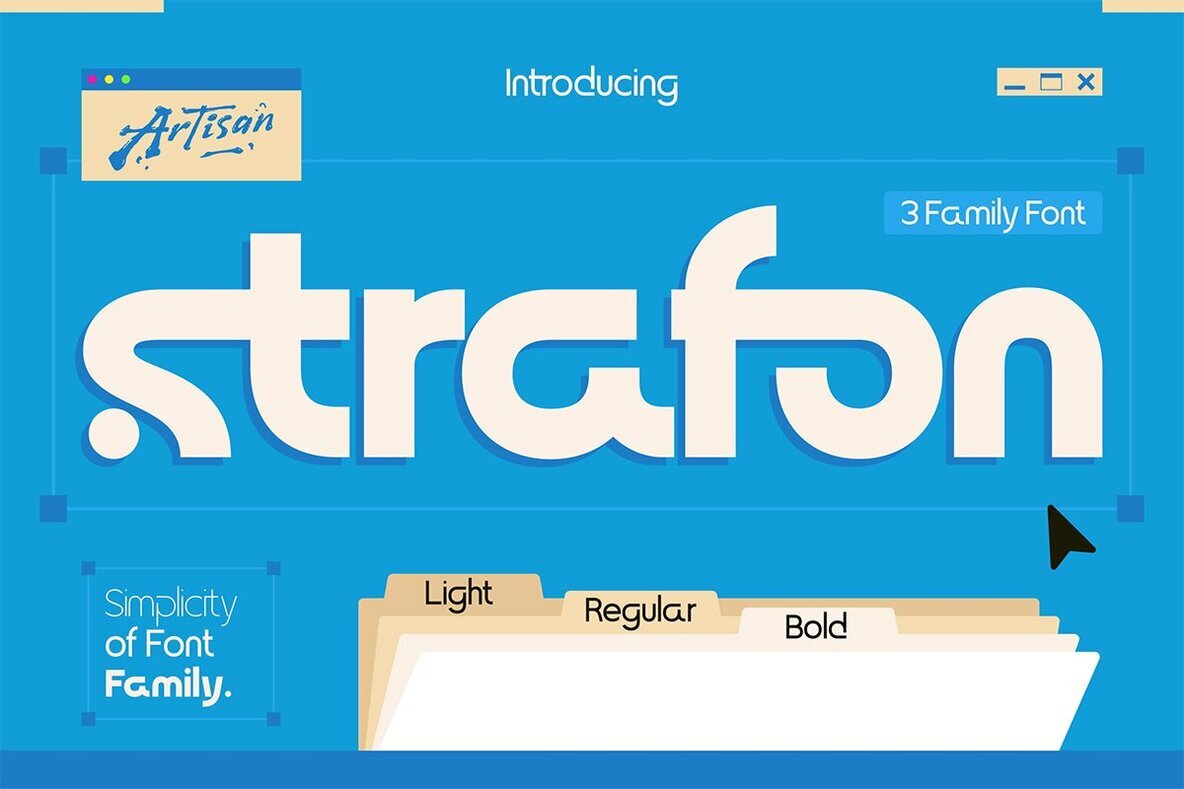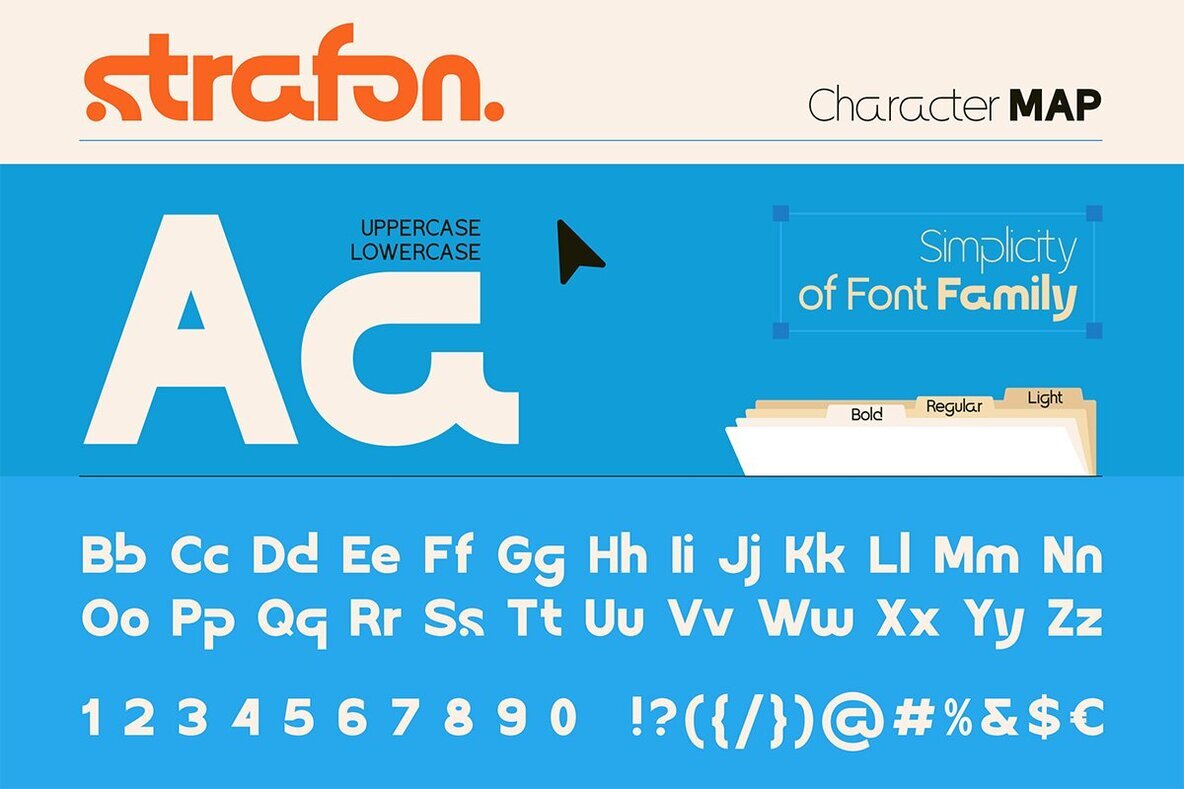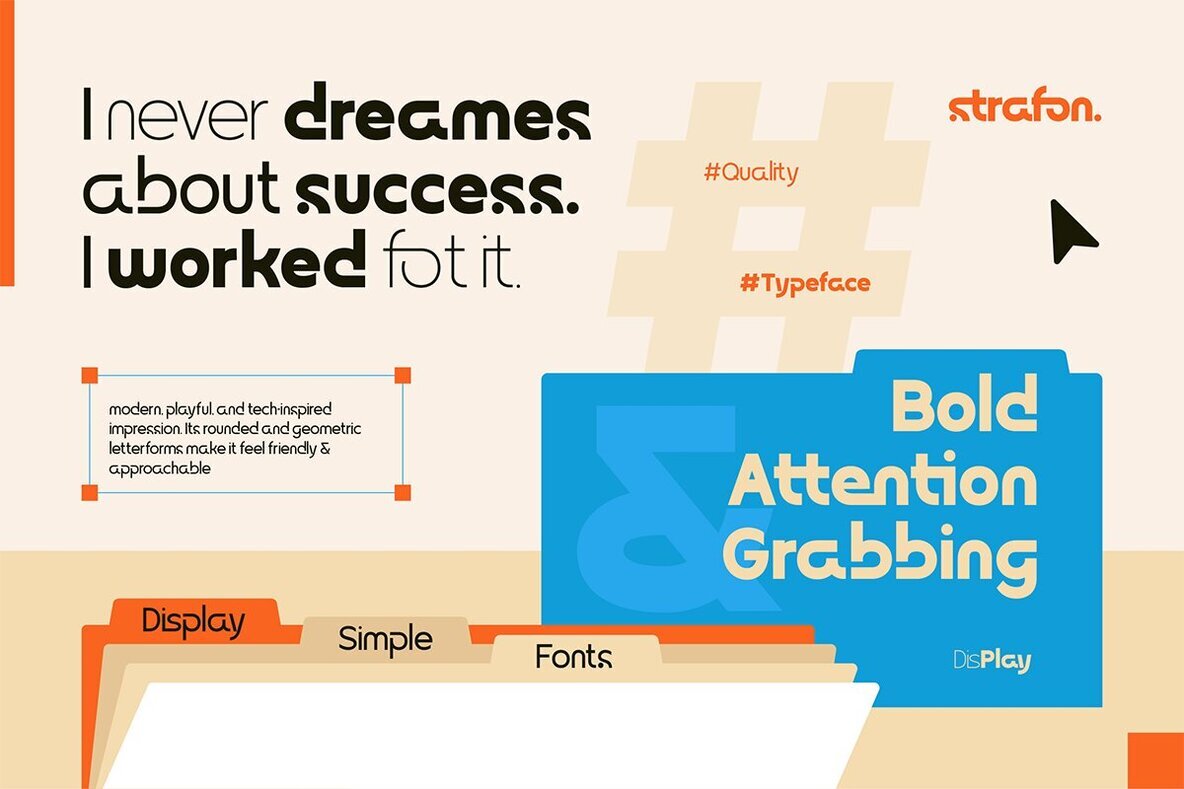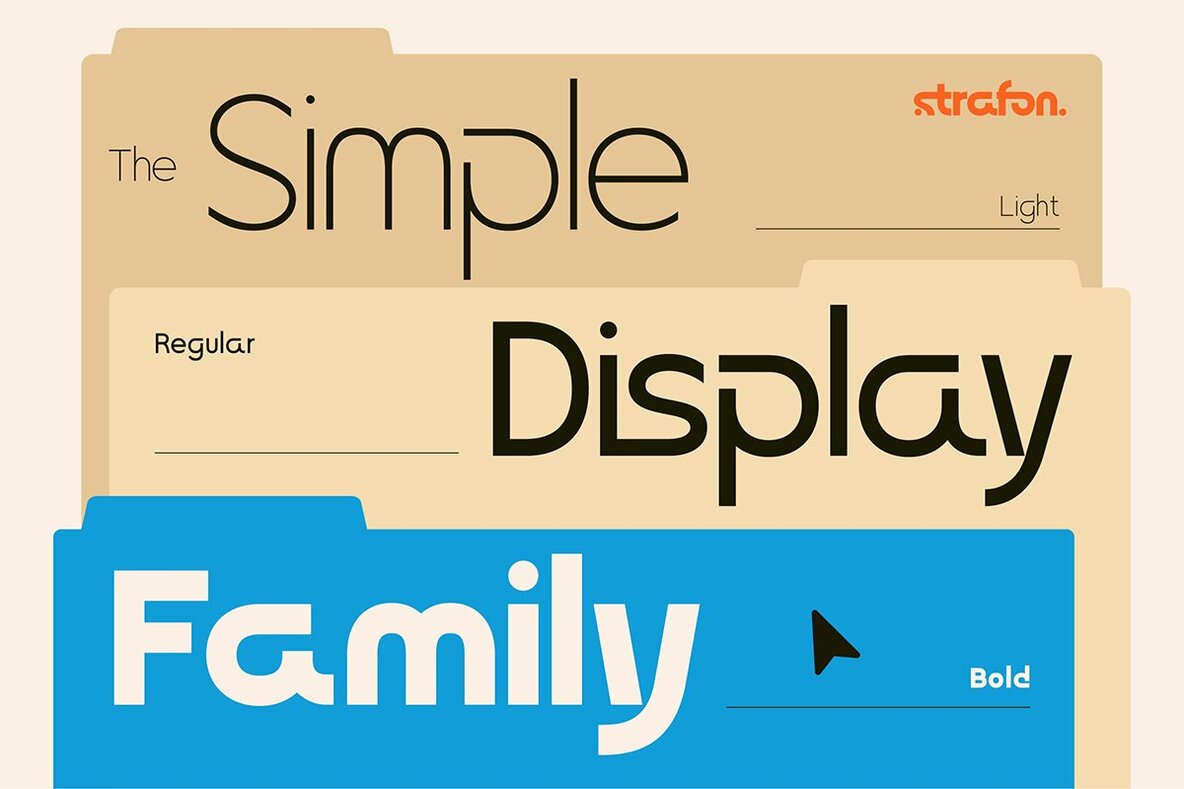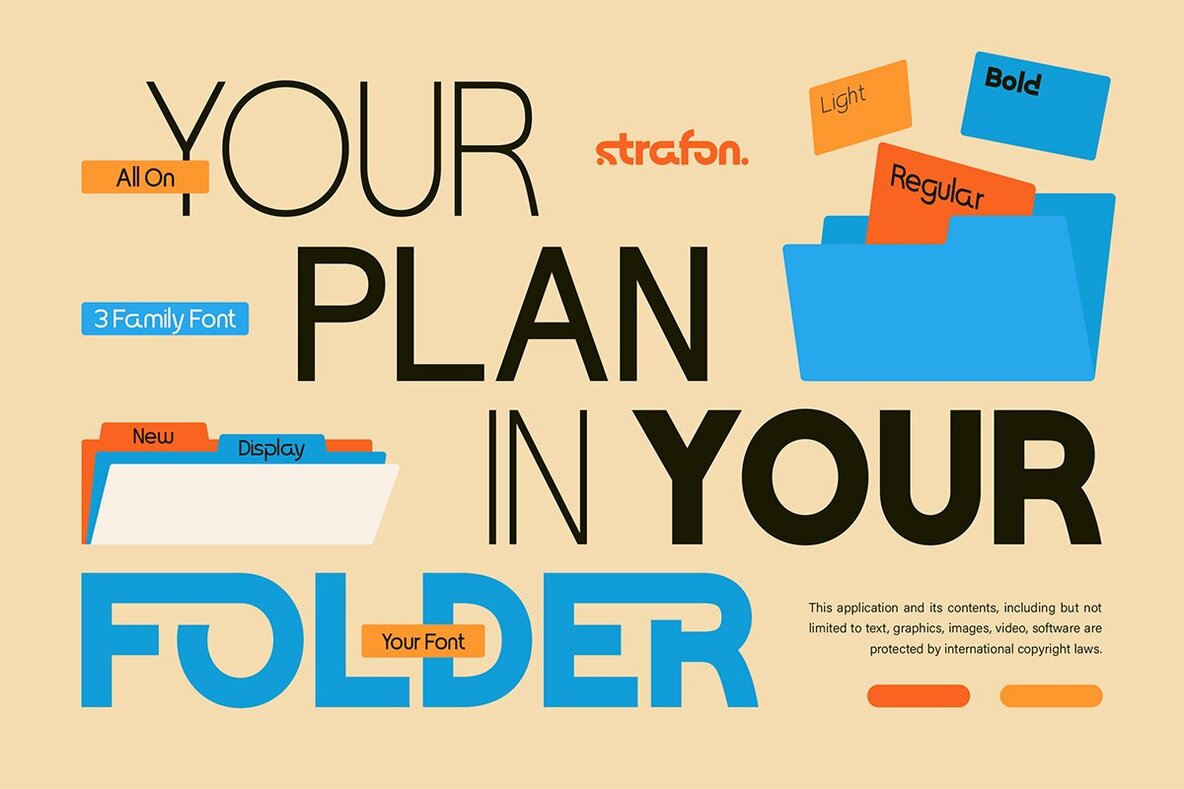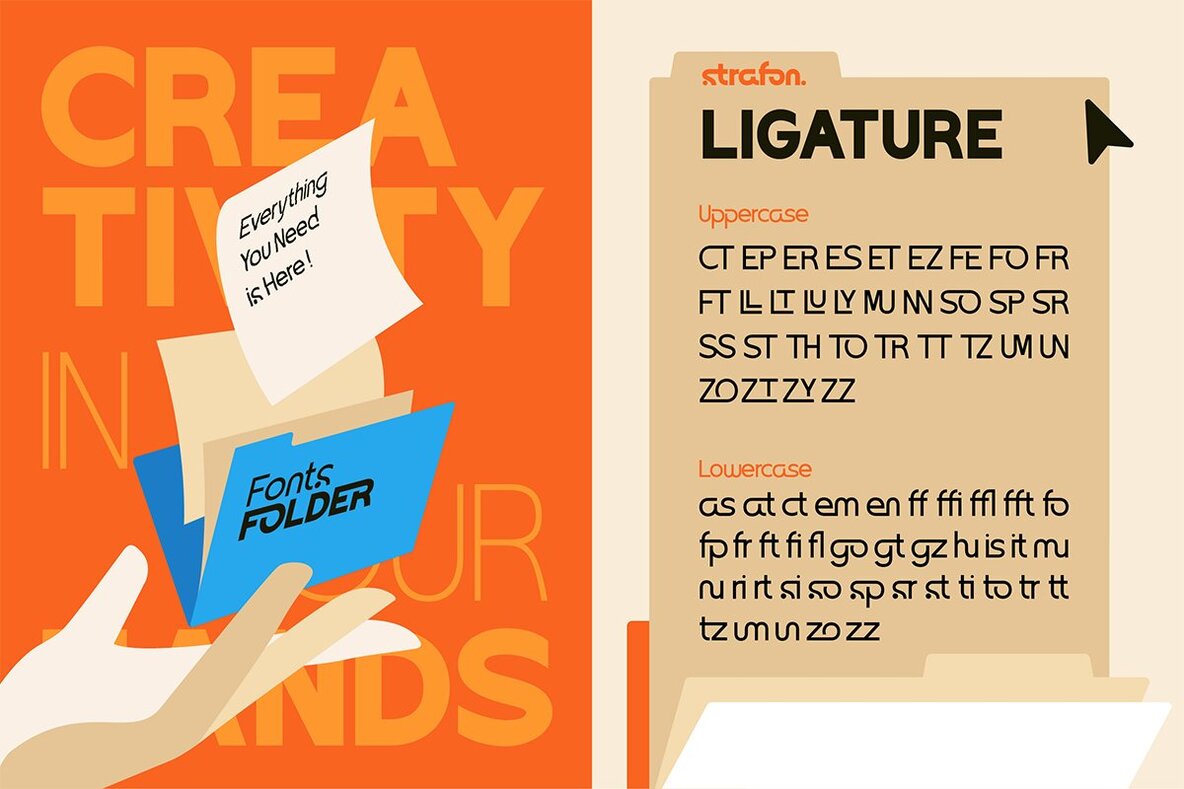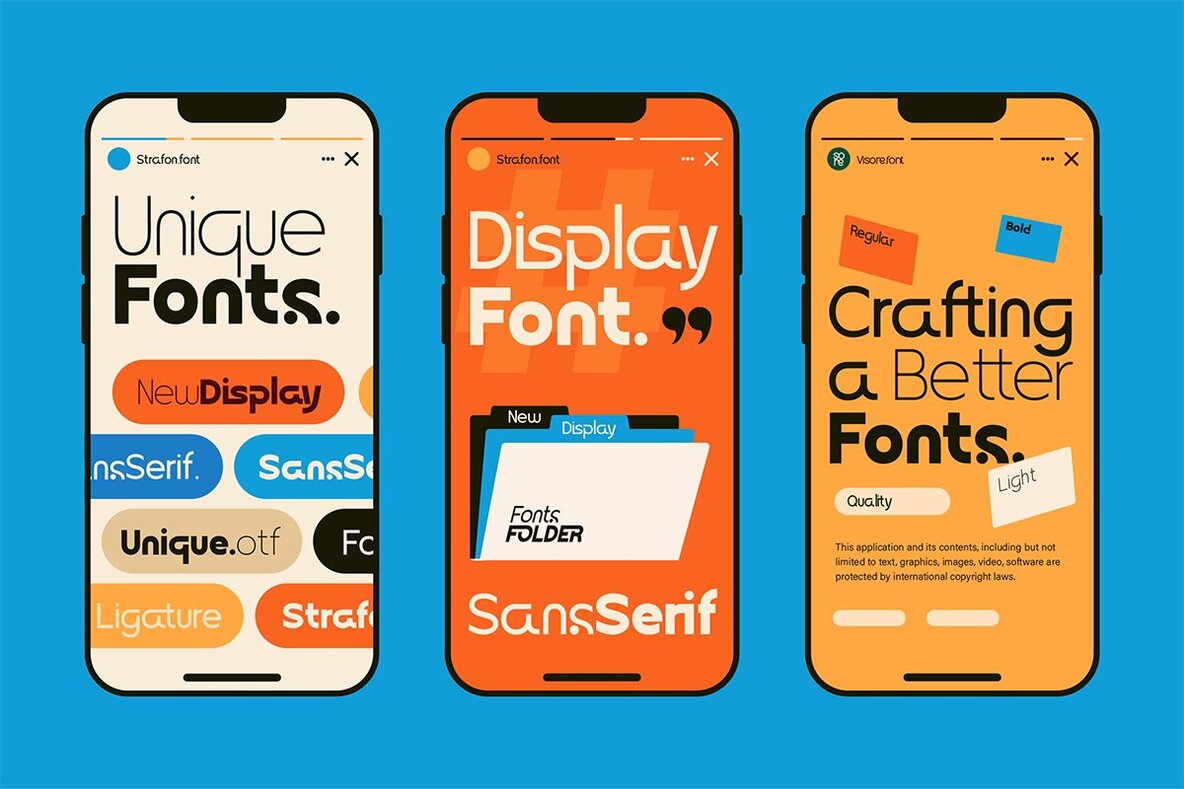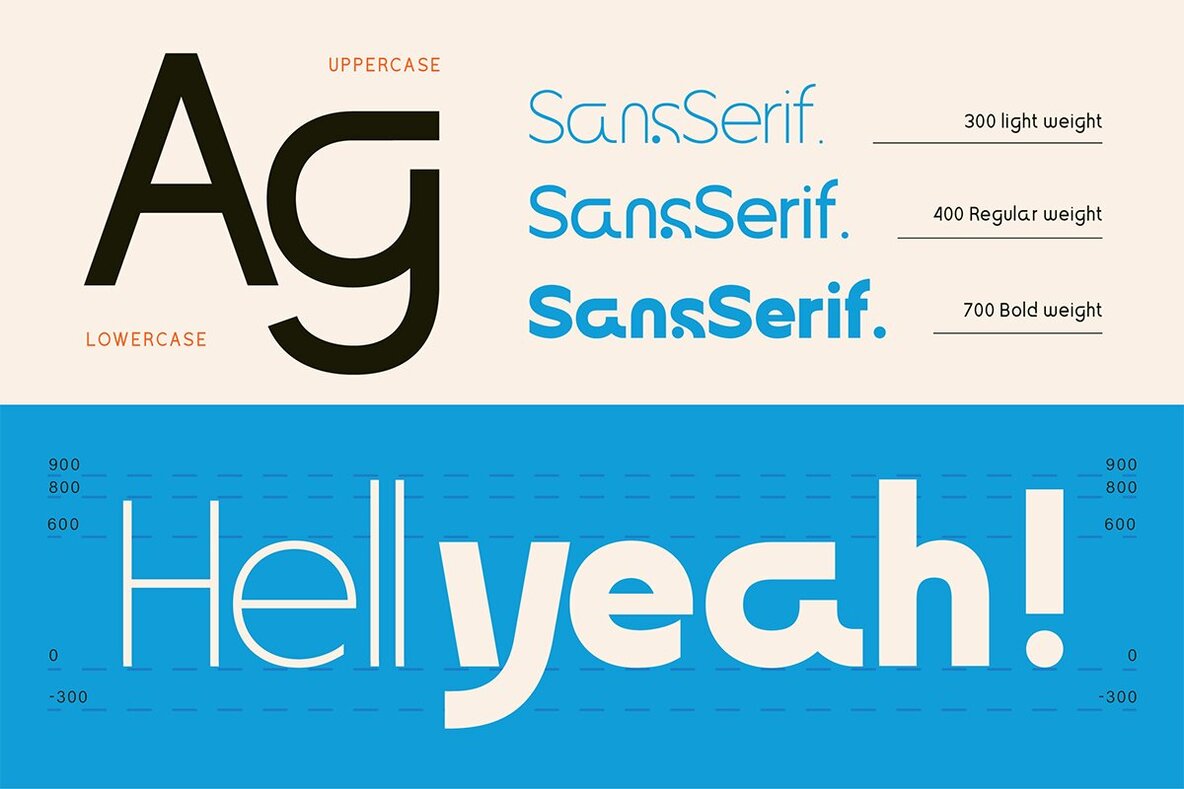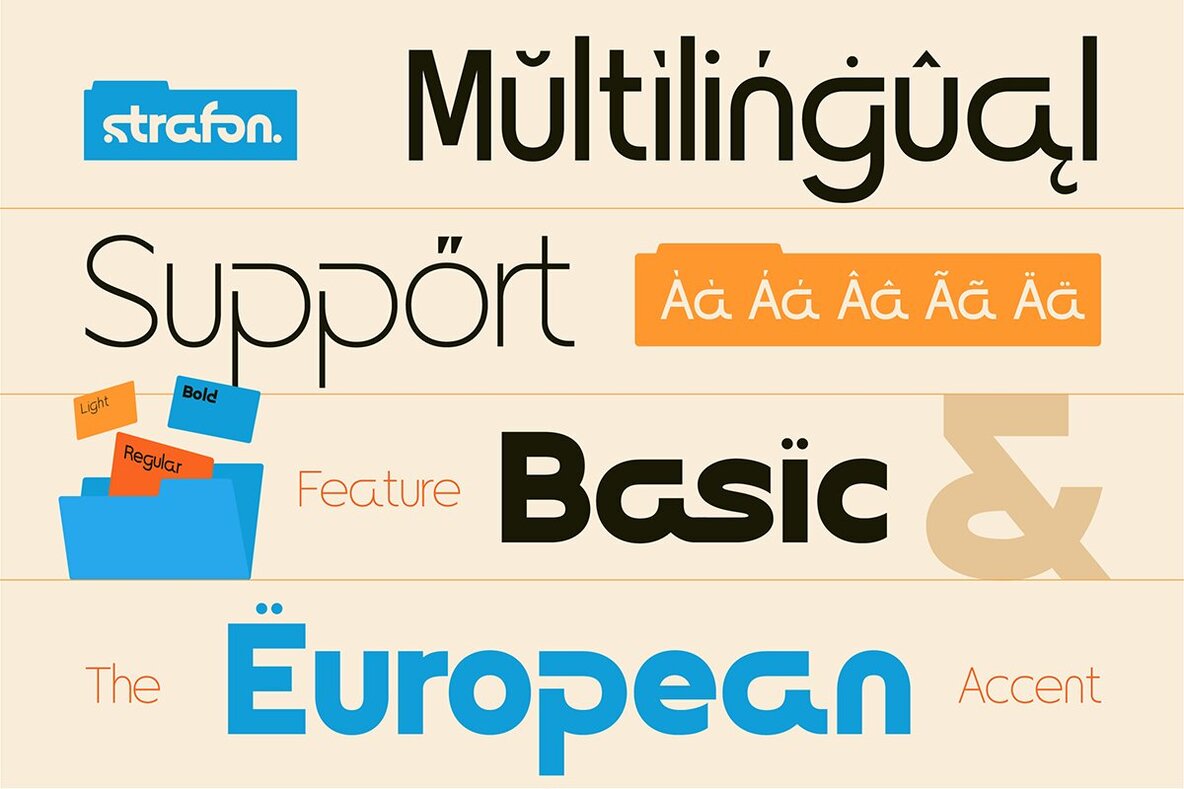
Strafon Font
Strafon is a display sans serif font that balances clarity with distinctive character. Its rounded edges and smooth curves present a modern tone, while bold geometry hints at futurism, making Strafon suitable for design work that requires both professionalism and character. Strafon works seamlessly for logos, headlines, and UI design, sitting comfortably at the intersection of corporate minimalism and visual warmth. Influenced by the organized shapes of file folders and orderly layouts, Strafon offers three weights—Light, Regular, and Bold—to accommodate diverse typographic needs. Each style maintains visual harmony, ensuring consistency across branding systems or editorial projects. Strafon’s appeal lies in its ability to deliver a clean presence that feels organized yet inviting, allowing designers to communicate sophistication without cold rigidity. Features:Strafon: Structured Sans Serif With Rounded Personality